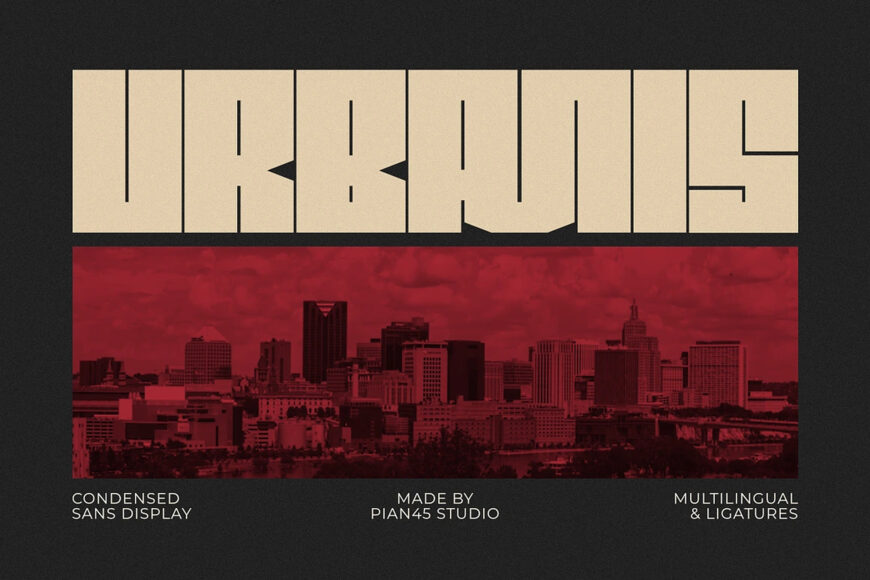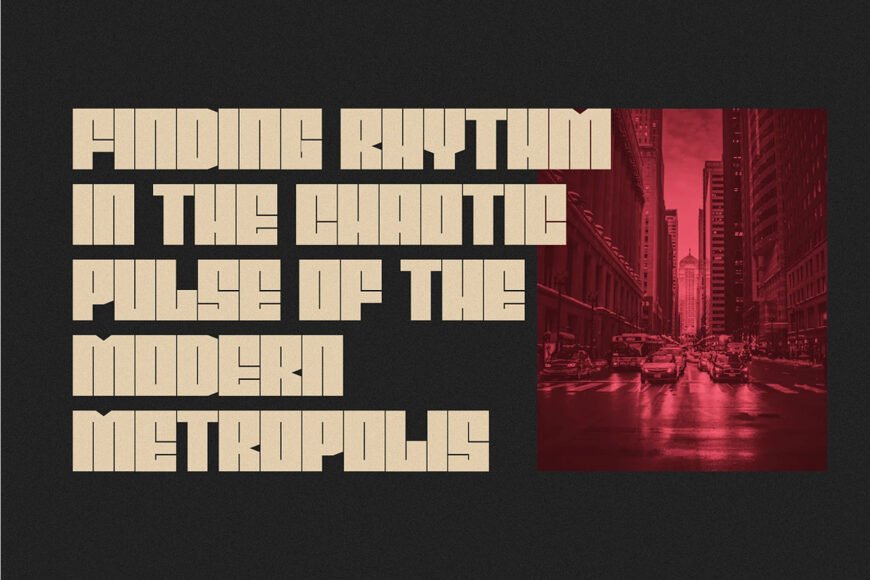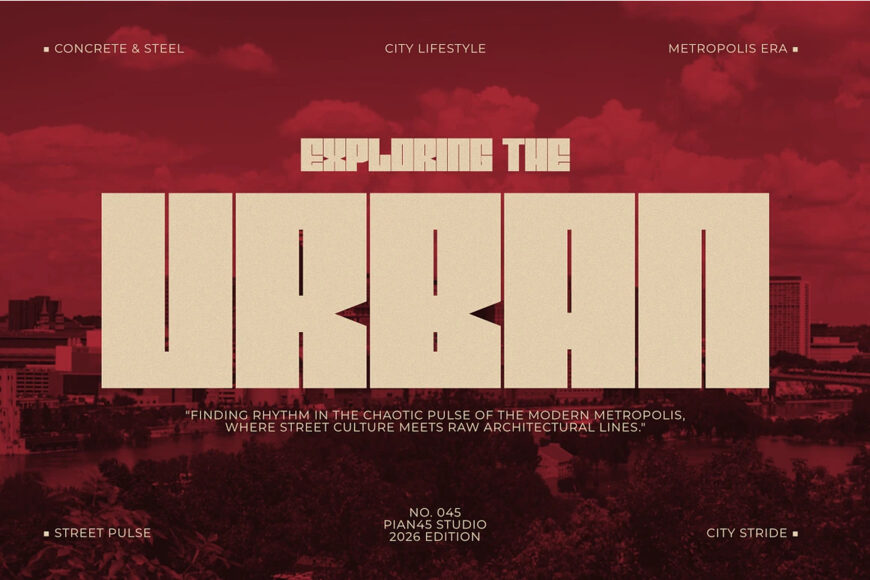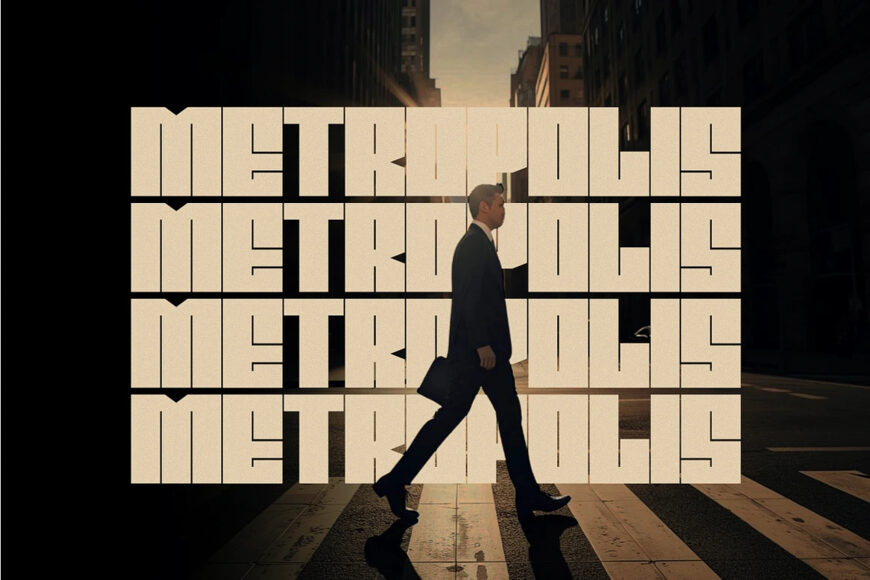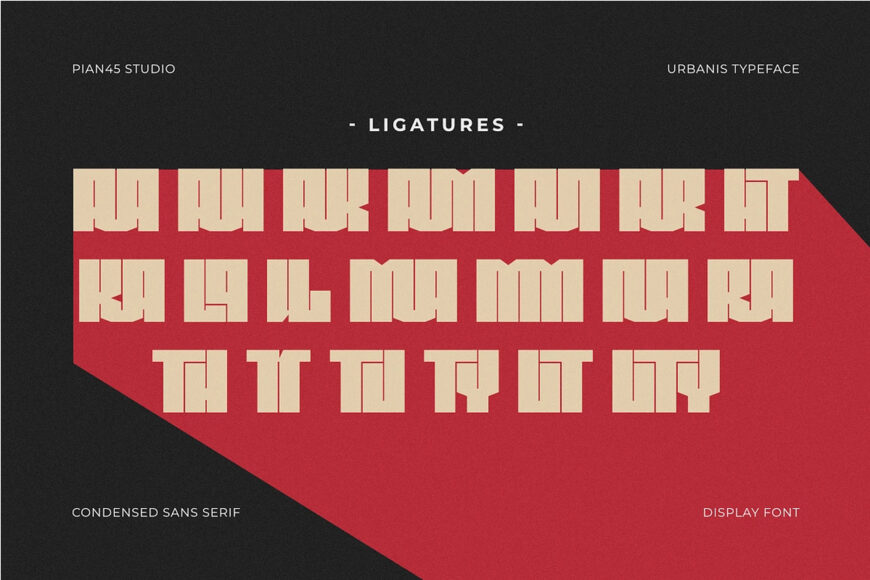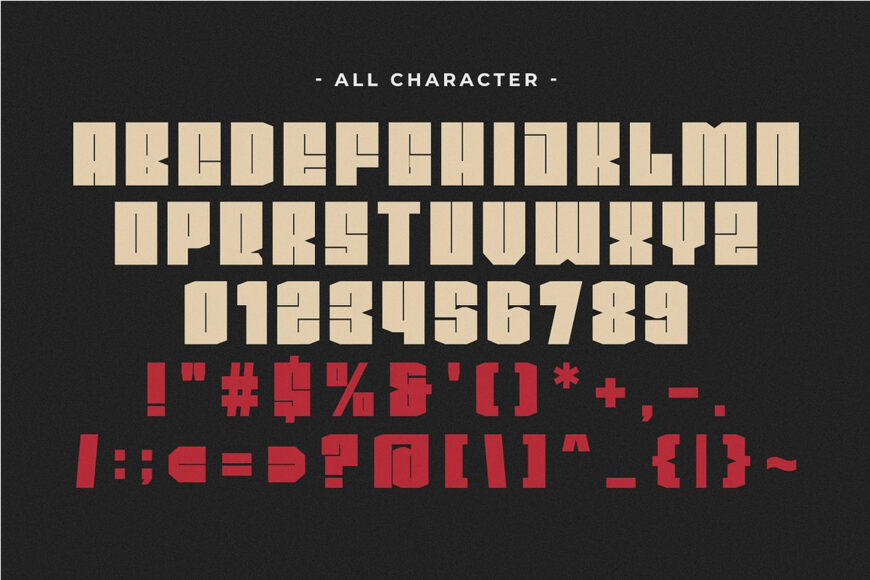
Urbanis is a raw, heavy-duty Modern Condensed Sans Display font engineered to capture the bold aesthetic of contemporary city landscapes and street culture. Designed with massive blocky letterforms, unique geometric cutouts, custom ligatures, and a space-saving condensed typeface structure, this all-caps font is built for urban branding, streetwear apparel, music album covers, esports graphics, and modern architectural logos.
Its solid structure and commanding visual presence deliver maximum impact across high-visibility headlines, event posters, custom t-shirts, and digital marketing materials that need an unmistakable edge.